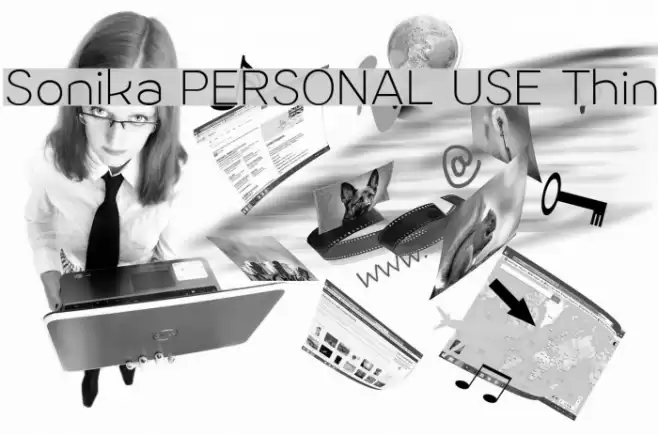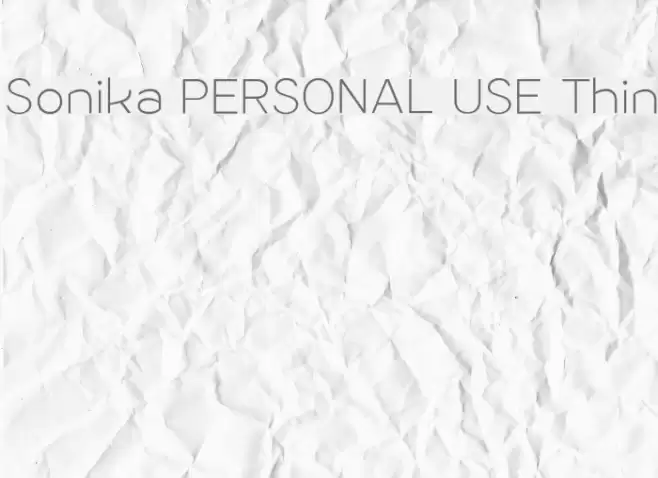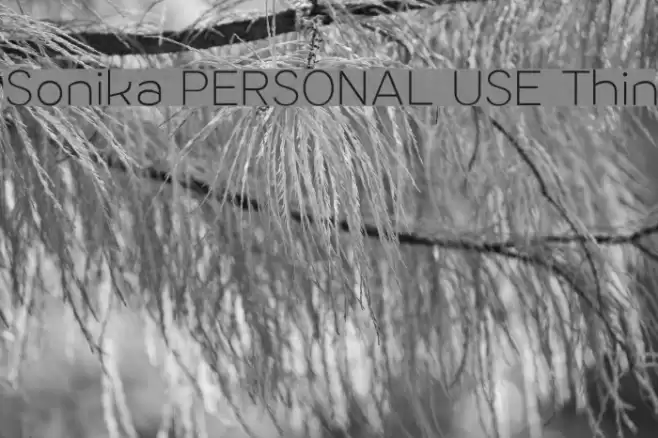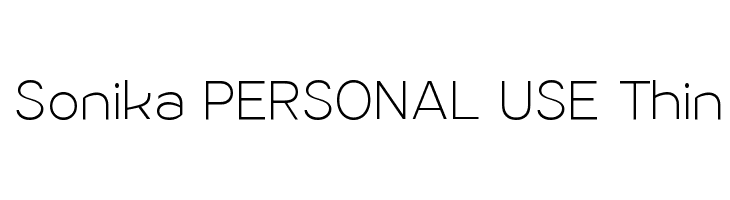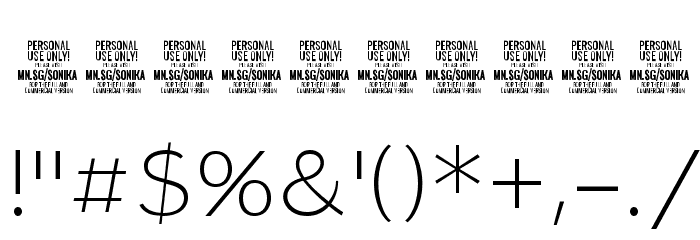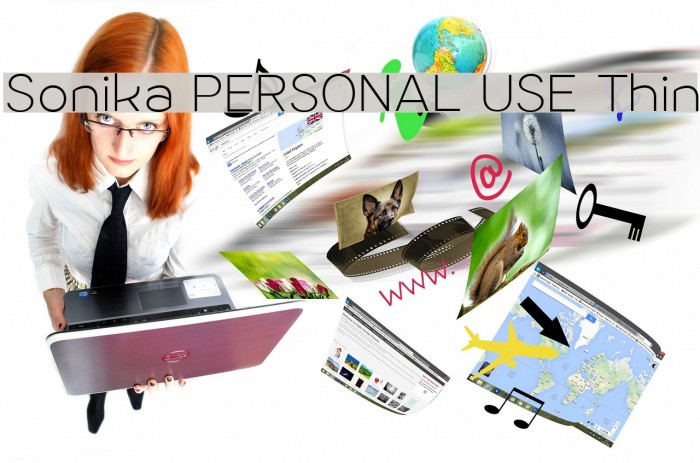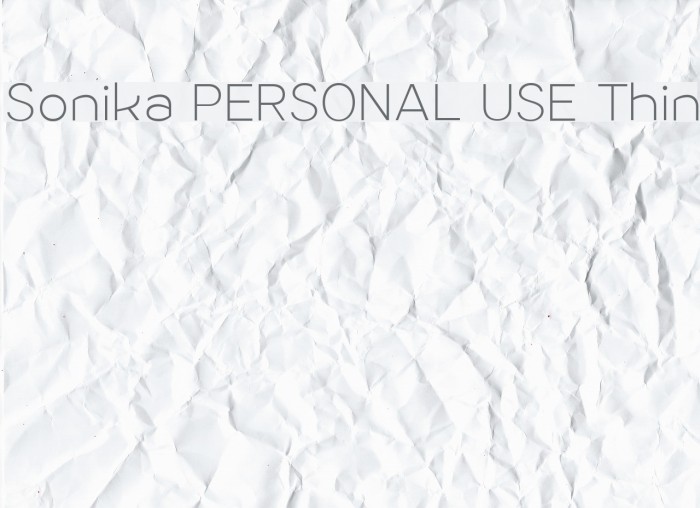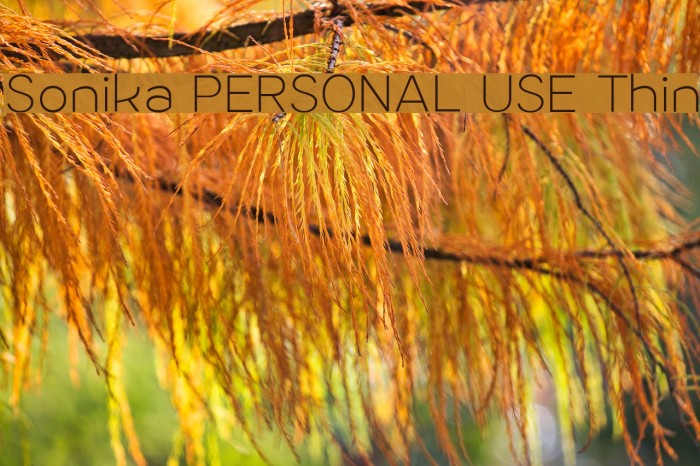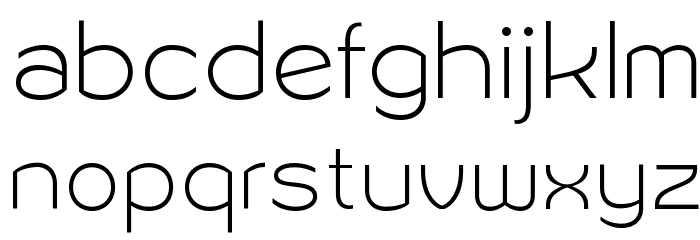
Sonika PERSONAL USE Thin Font
Sonika PERSONAL USE Thin Description
This font features a sleek and modern design with thin, clean lines that create a minimalist aesthetic. The uppercase and lowercase letters are well-proportioned, offering a sense of balance and harmony. The characters are slightly rounded, giving them a friendly and approachable feel. The numerals and special characters maintain the same thin and elegant style, ensuring consistency throughout. This font is ideal for projects that require a contemporary and sophisticated look, such as branding, editorial design, or digital interfaces.
A sleek, modern font with thin, clean lines and a minimalist aesthetic from Uncategorized fonts.
- Proposed Projects: Ideal for branding, editorial design, digital interfaces, and minimalist projects.